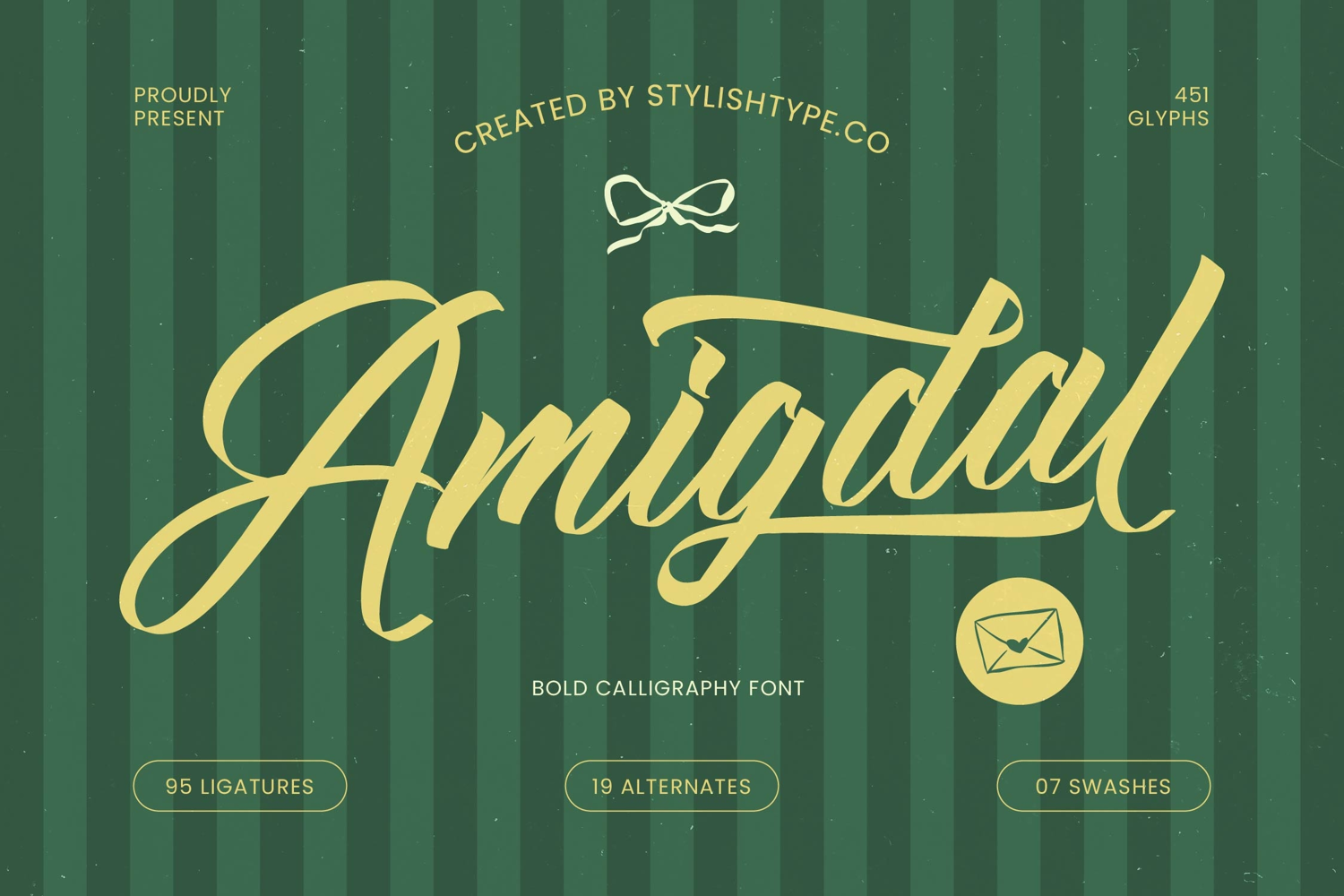
Amigdal - Bold Calligraphy Font
Amigdal Font Italic
Amigdal Font
Elevate your design projects with unparalleled energy and flair. Amigdal - Bold Calligraphy Font is a dramatically styled script typeface that commands attention, blending the organic flow of hand-drawn lettering with a robust, high-impact presence. Its weighty strokes and fluid connections create a sense of movement and authentic craftsmanship, making it the perfect choice for projects demanding both intimacy and strength. This bold script is meticulously crafted to ensure legibility even at large display sizes, guaranteeing maximum visual resonance in any campaign.